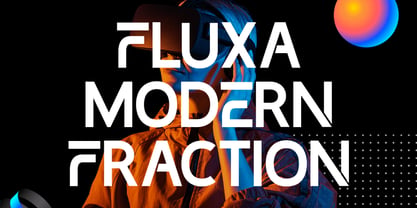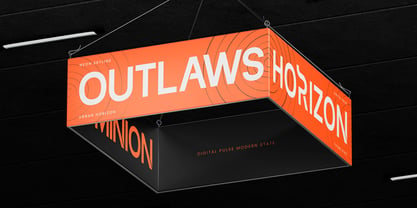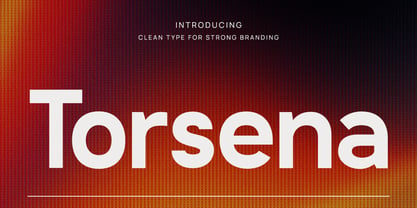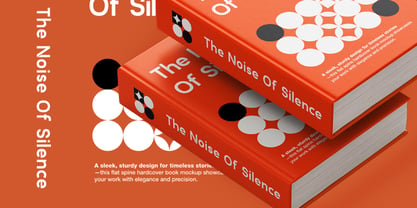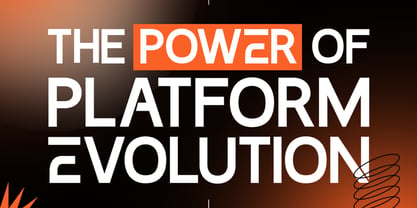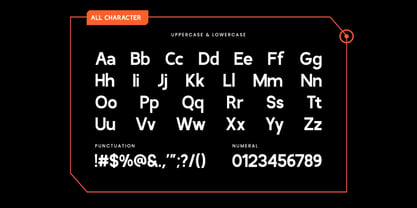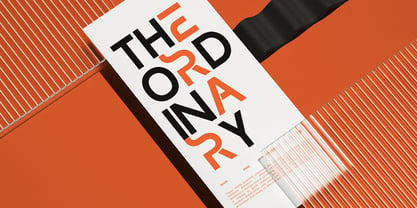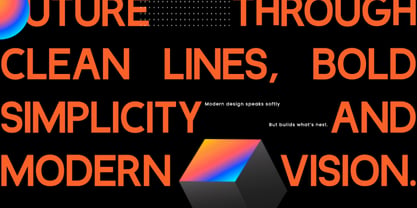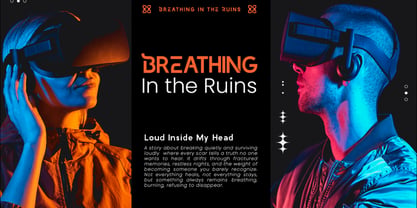
Torsena
von Rasio Studio
Die Schriftfamilie Torsena wurde von Fajar Indra entworfen und von Rasio Studio veröffentlicht. Torsena enthält 1 Stile. Mehr über diese Familie
Torsena is a modern sans serif typeface built with clean geometry, balanced proportions, and a bold contemporary presence. It includes uppercase, lowercase, numerals, punctuation, and multilingual support, making it highly functional for diverse design needs. The design blends minimal structure with strong visual impact, delivering clarity across both display and text applications. Relevance and Use Case is perfect for typeface aligns with modern visual trends, making it relevant for branding, digital interfaces, editorial layouts, and marketing materials that demand clarity and strong presence. It works effectively for technology brands, startups, corporate identities, and creative industries where a clean and futuristic tone enhances communication.